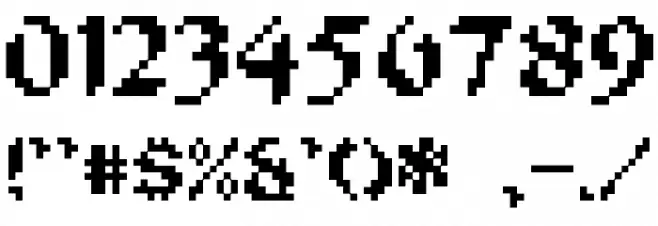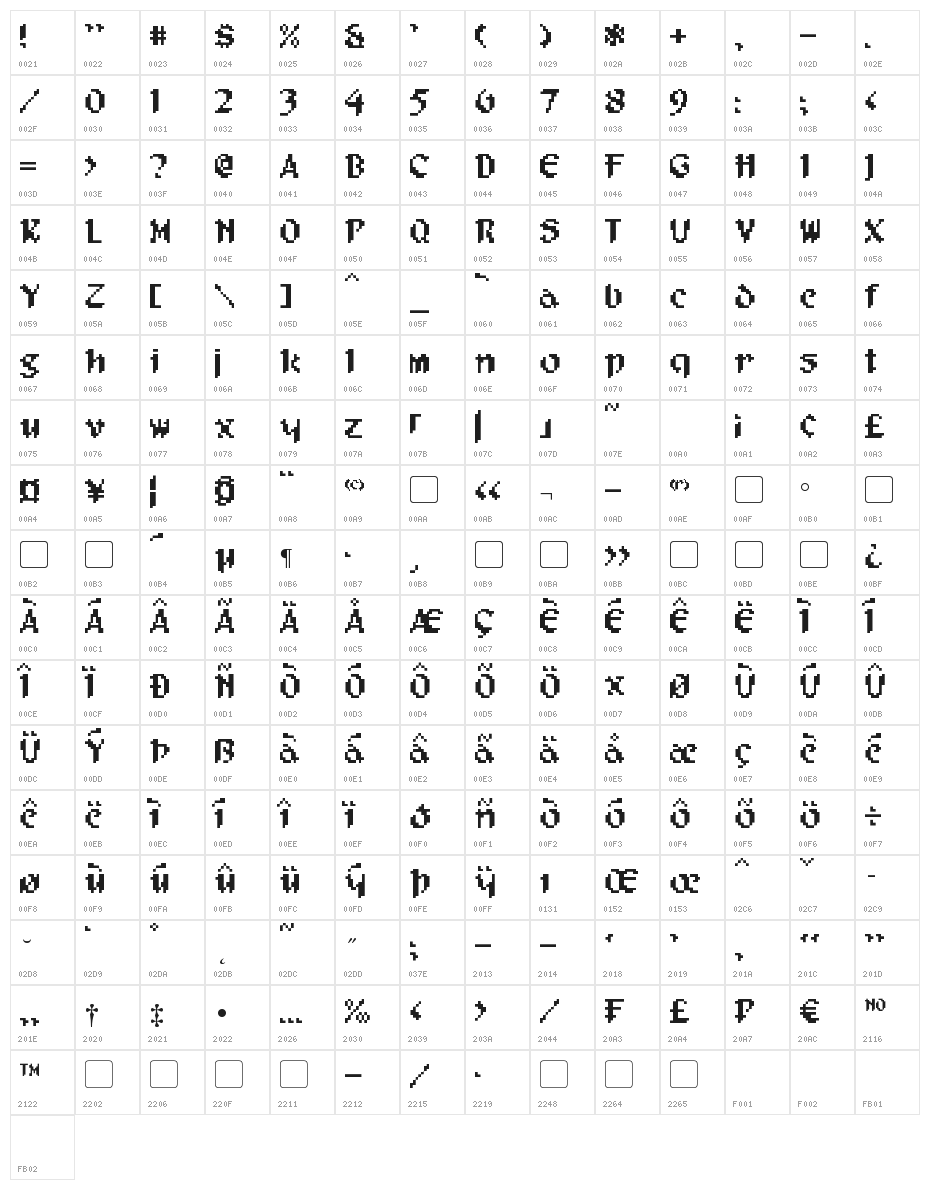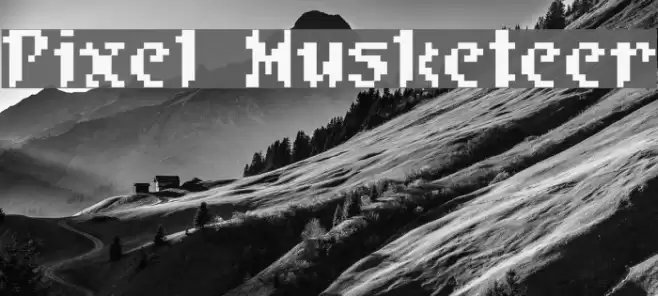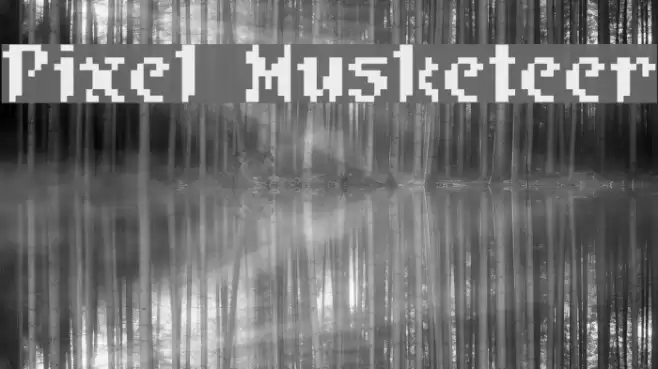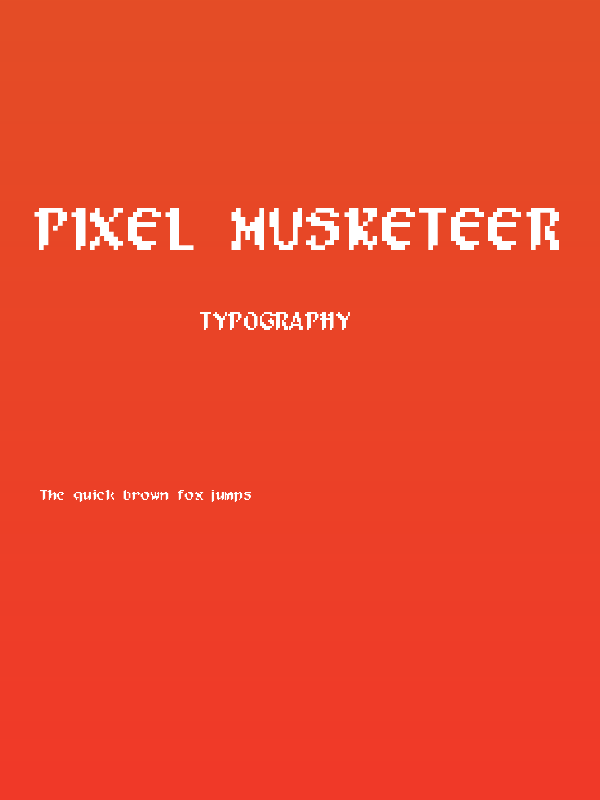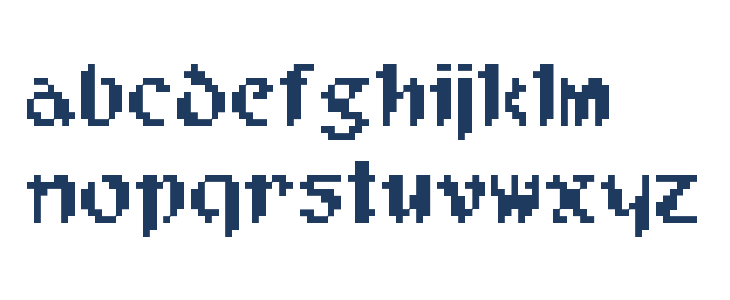
Pixel Musketeer Font
Pixel Musketeer Description
This font features a bold, pixelated style reminiscent of retro video games and digital displays. Each character is constructed with a blocky, grid-like appearance, giving it a distinctly digital and nostalgic feel. The uppercase and lowercase letters maintain a consistent pixelated form, while numbers and special characters follow the same aesthetic, ensuring uniformity across all glyphs. The design is straightforward yet impactful, making it ideal for projects that aim to evoke a sense of nostalgia or a digital theme. Its unique style is both eye-catching and easily legible, even at smaller sizes.